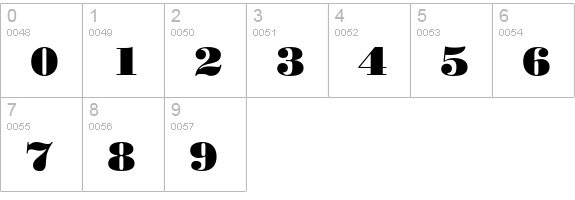
PM StandardPoster Cyrillic Font Details
Introducing the PM StandardPoster Cyrillic font, a striking and versatile typeface that will add a touch of elegance and professionalism to any design project. With its bold and commanding presence, this font is perfect for creating eye-catching headlines, posters, and signage that demands attention. The PM StandardPoster Cyrillic font features a unique combination of bold strokes and intricate details, resulting in a design that is both bold and refined. Its clean and crisp letterforms make it highly legible, ensuring that your message is easily conveyed to your audience. One of the best features of the PM StandardPoster Cyrillic font is that it is freely available to download at FontsMarket.com. This means you can easily access this beautiful font and incorporate it into your design projects without any cost. Whether you are a professional designer looking to enhance your portfolio or a hobbyist looking to add a touch of sophistication to your personal projects, this font is a must-have addition to your collection. With its extensive character set, the PM StandardPoster Cyrillic font supports multiple languages, making it suitable for international projects. Its versatility allows it to be used in various design applications, such as branding, packaging, advertising, and much more. The PM StandardPoster Cyrillic font is designed with meticulous attention to detail, ensuring that each letter and symbol harmoniously complements the overall composition. Its timeless appeal and classic design make it a perfect choice for projects that require a touch of elegance and sophistication. So why wait? Download the PM StandardPoster Cyrillic font today from FontsMarket.com and unlock a world of creative possibilities. Whether you are a seasoned professional or just starting out in the world of design, this font is sure to elevate your projects and leave a lasting impression. Best of all, it's completely free, so you can add this stunning font to your collection without breaking the bank. Don't miss out on this incredible opportunity to enhance your designs with the PM StandardPoster Cyrillic font.